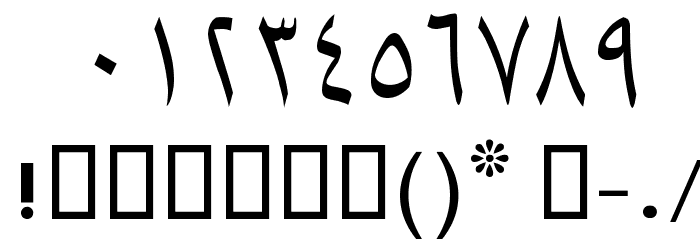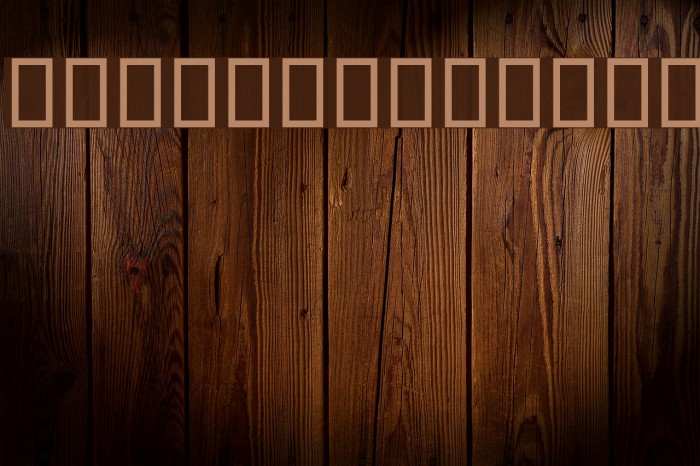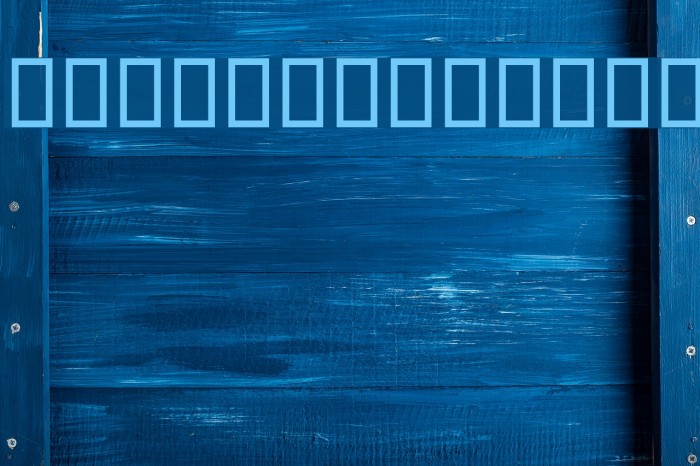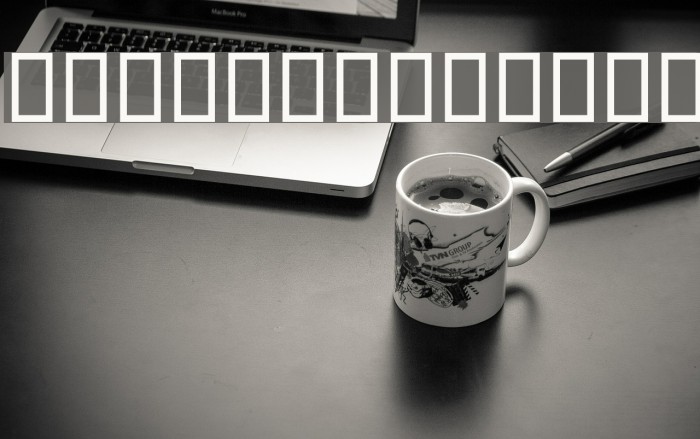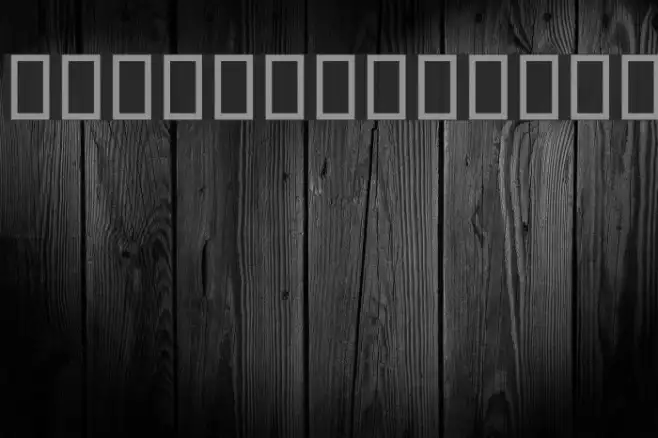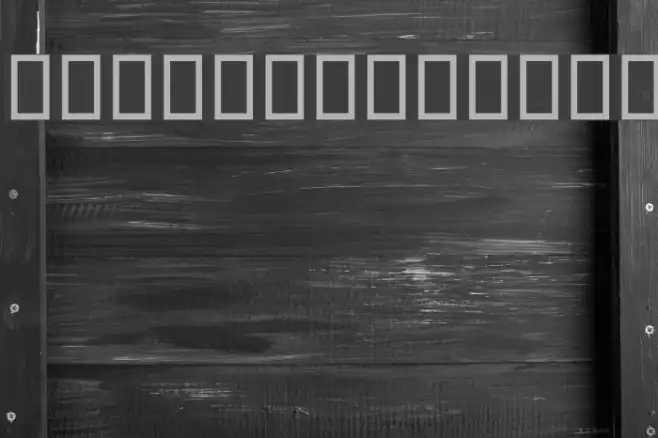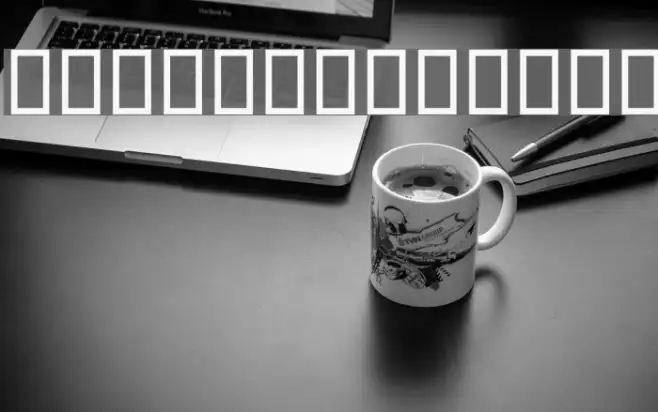
Diwaani Font
This font is characterized by its elegant and flowing script style, reminiscent of traditional calligraphy. The letters are intricately designed with smooth curves and delicate strokes, creating a sense of fluidity and grace. The numerals are distinct, with unique shapes that complement the overall aesthetic. Special characters are stylized to match the ornate nature of the font, making it suitable for decorative purposes. The font's artistic flair makes it ideal for projects that require a touch of sophistication and cultural richness.
An elegant, calligraphic script font with flowing curves and ornate details.
- Proposed Projects: Ideal for wedding invitations, formal event programs, artistic posters, and cultural publications.
- Use Case: Logos, Invitations, Artistic projects